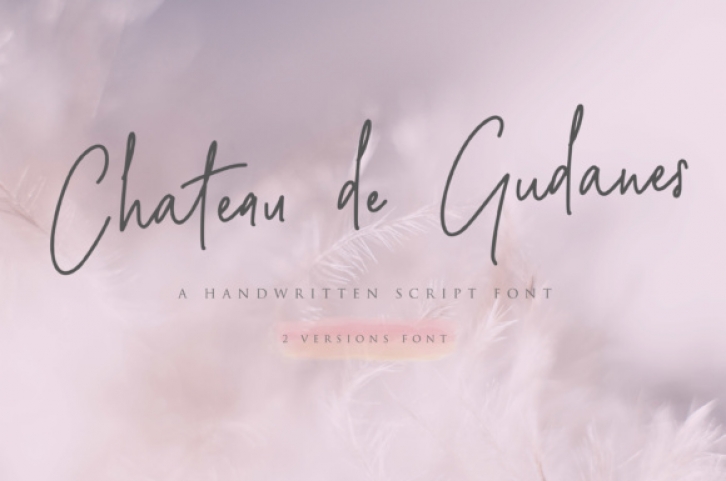
The Chateau de Gudanes is a beautiful handwritten script font. With its modern script style, its perfect for many different projects such as: photography, watermarks, quotes, blog headers, posters, weddings, branding, logos, and every other design that needs to look upscale and chic.